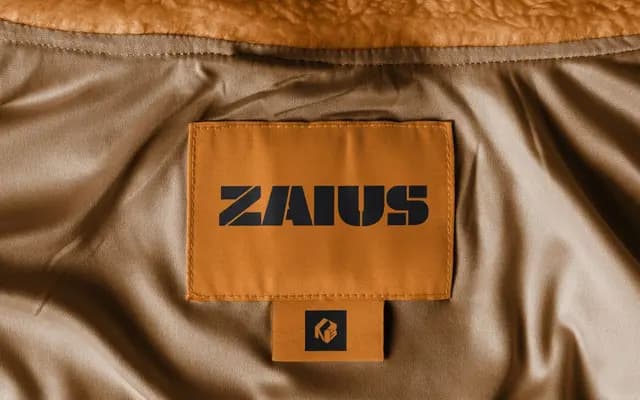
A bold display sans inspired by Ed Benguiat's lettering for Planet of the Apes (1968), updated with stencil, outline and fill variants.
Version 2.0 of this display typeface refines the heavy, expressive aesthetic of the original with expanded character support across Western, South and Central European languages, plus eight numeral variations. The family comprises four styles: the base weight alongside Ultra, Stencil and Outline cuts, making it well suited to print, motion graphics and apparel. Its lineage in 1960s sci-fi movie titling gives it a period flavour that works for retro and editorial contexts.
A bold, decorative sans-serif with stencil and outline variants, inspired by 1960s movie lettering; its expressive weight and stylistic variants place it firmly in the display category.